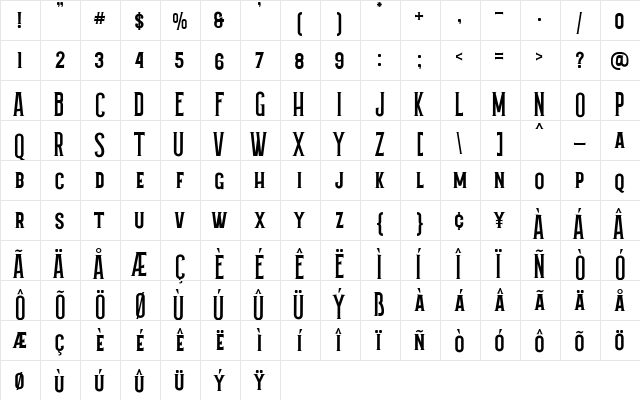
Grantmouth Standard Regular
Design Context for Grantmouth Standard Typeface
Grantmouth Standard offers clean, dependable letterforms without strong stylistic allegiance, making it a practical choice for designers who need flexibility.
Pro Tip: Use Grantmouth Standard in both headline and body roles to test its range before committing to a single application.